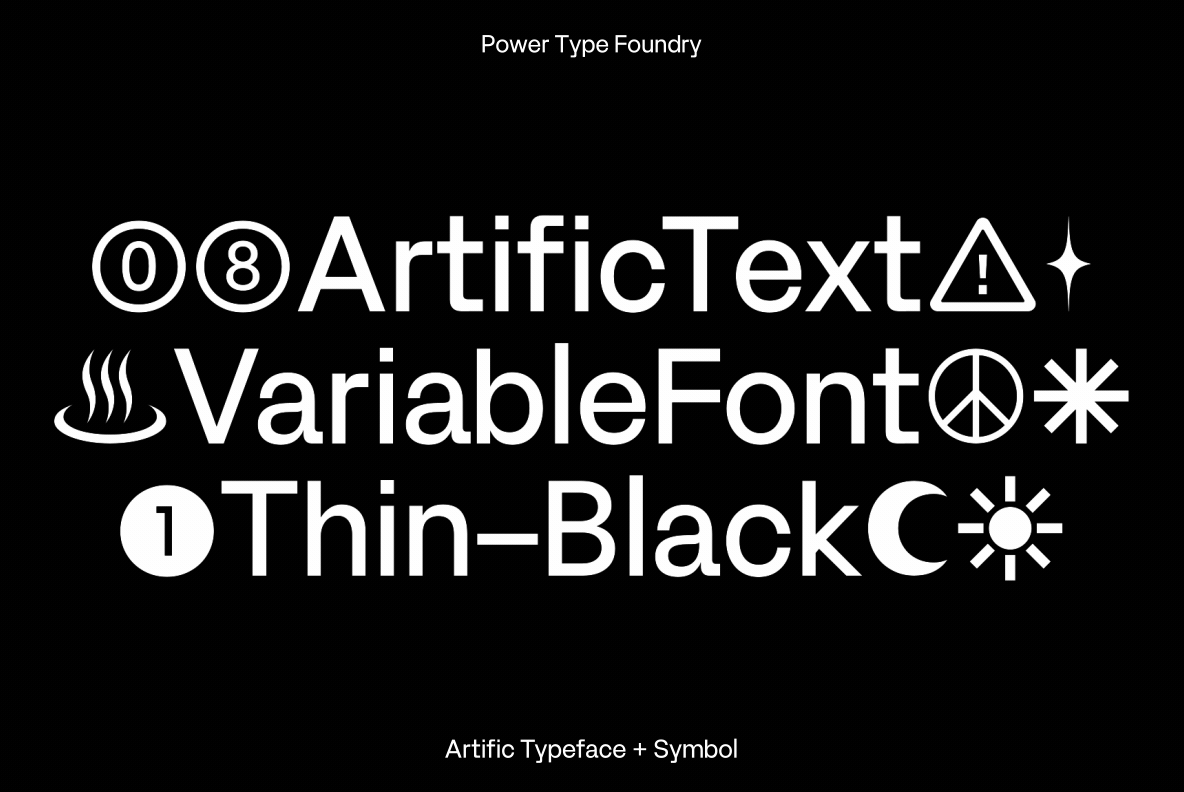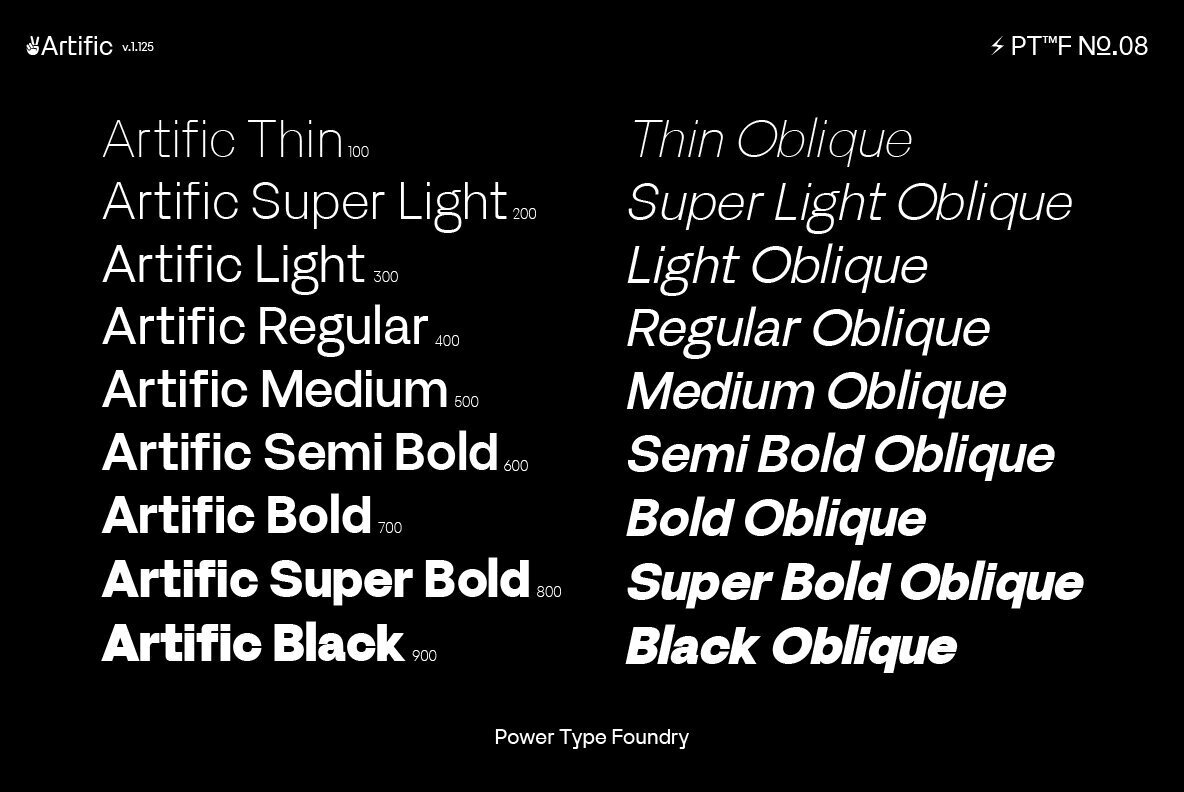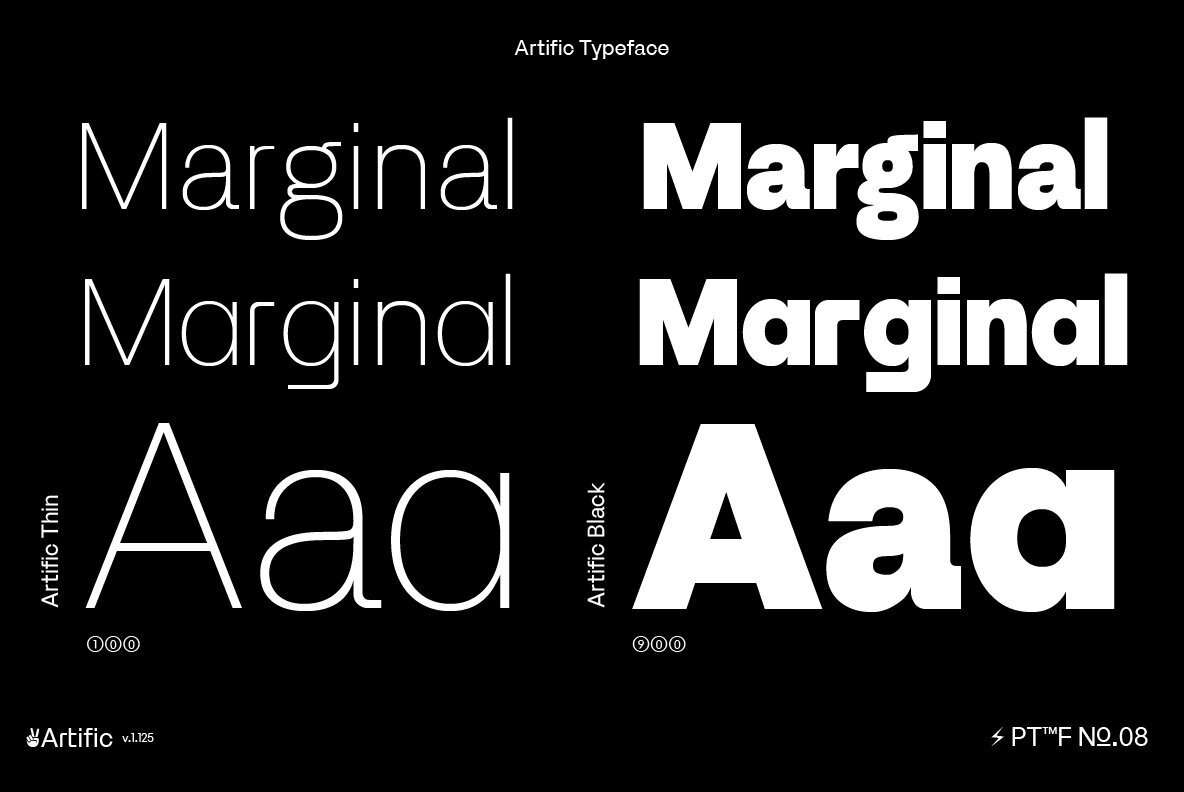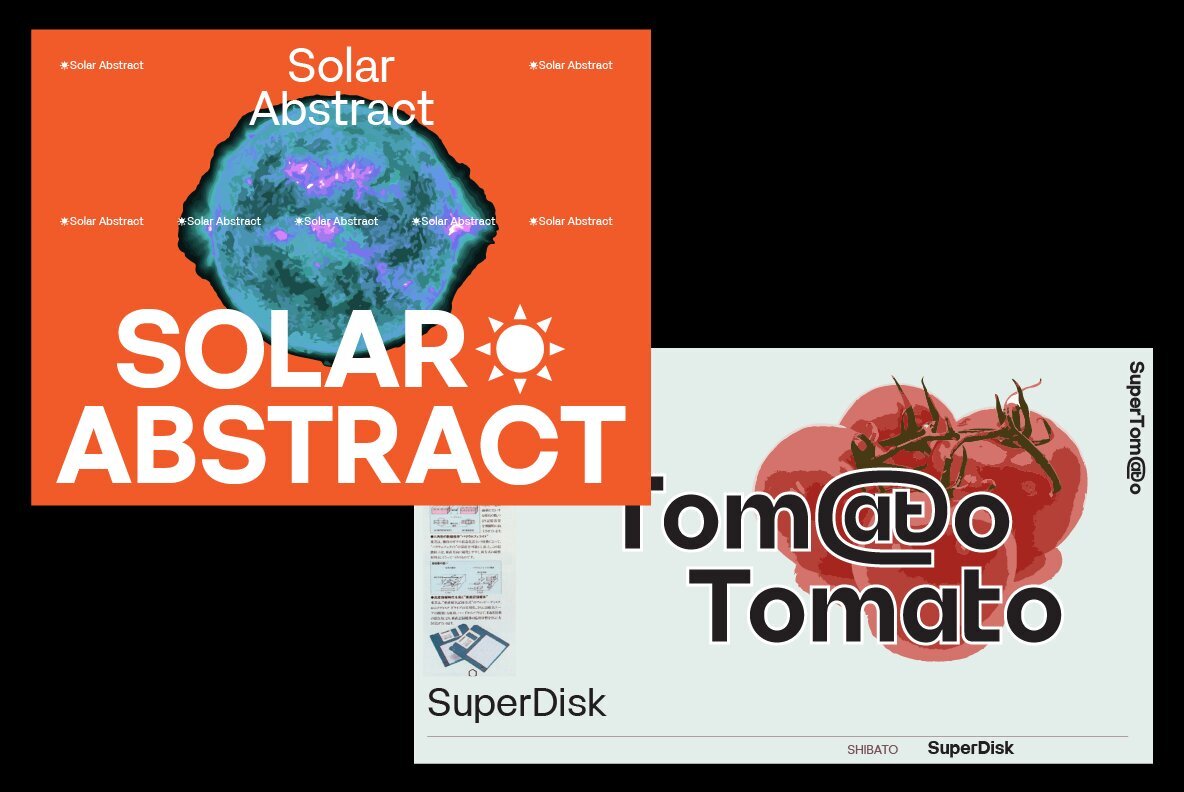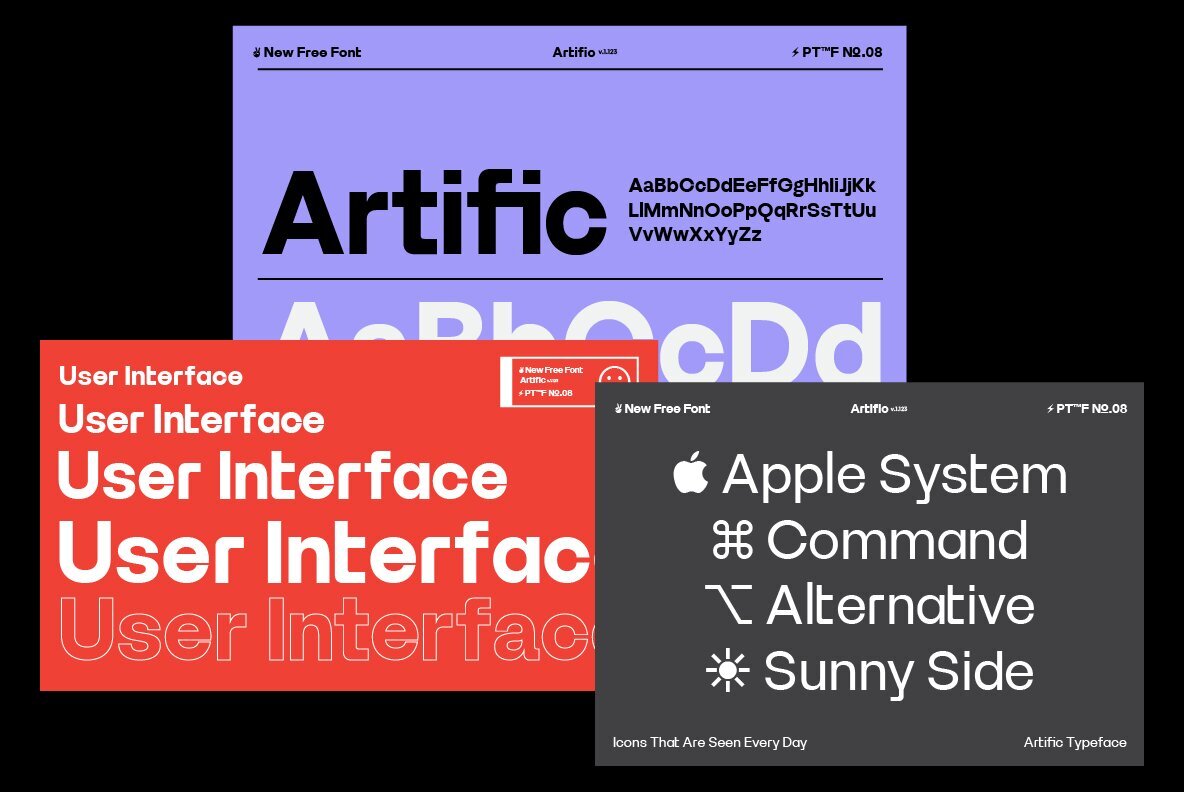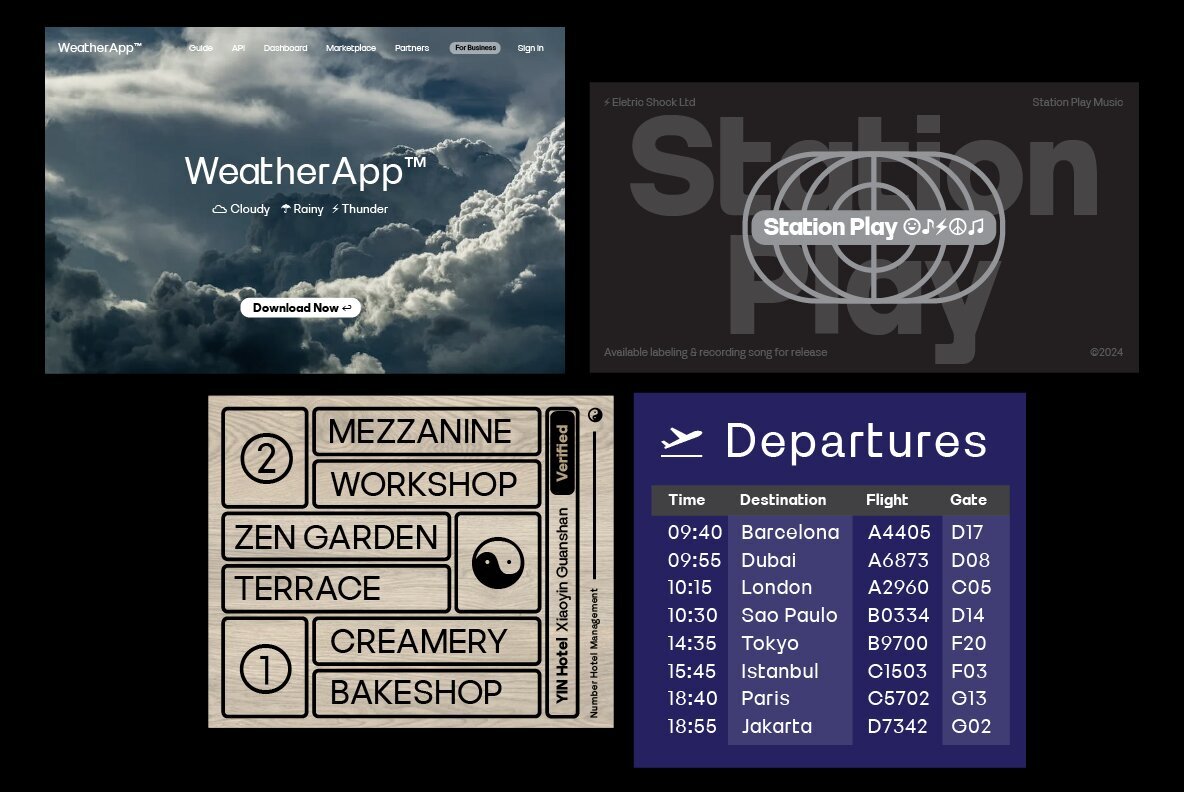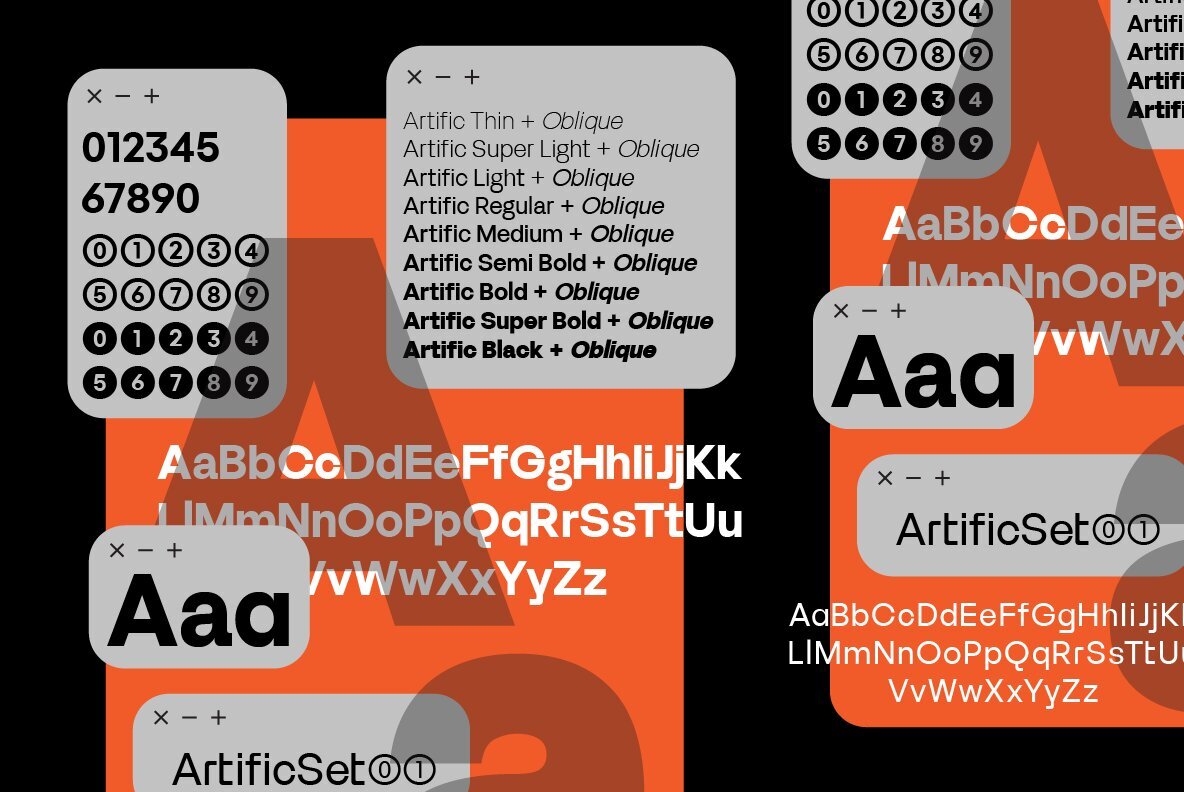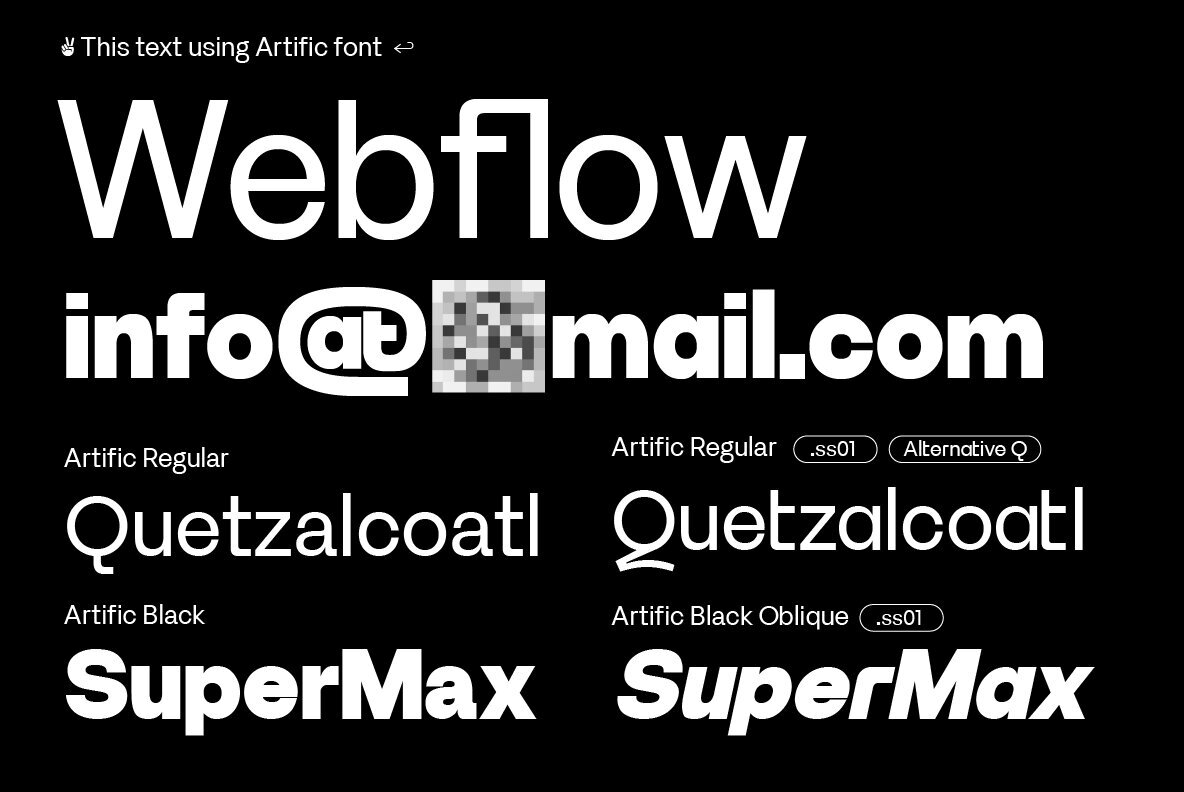
Artific Font
Artific a modern sans-serif typeface designed to bring versatility and elegance to both online and offline media. This font is perfect for contemporary interface design, offering exceptional readability and style. With 9 distinct weights, including Thin, Super Light, Light, Regular, Medium, Semi Bold, Bold, Super Bold, and Ultra, each paired with an oblique version, Artific provides a total of 18 styles. Its clean lines and modern aesthetic make it ideal for a wide range of applications, ensuring your designs stand out. Artific includes a comprehensive set of symbols, making it a go-to choice for modern interface and user experience design. Whether you’re designing for web, mobile, or print, Artific combines modern aesthetics with unmatched versatility and functionality. The geometric shapes and structures reflect the inspiration and influence of medieval typography. Power Grotesk moves between the vast historical material that makes up modern typography, combining contemporary details with classic styles.